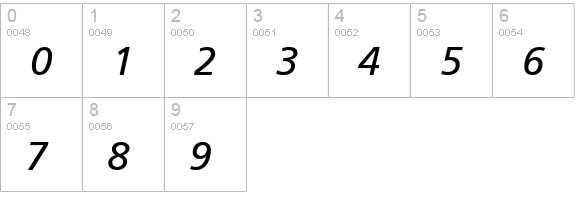
AG Foreigner Italic Medium Font Details
AG Foreigner Italic Medium is a balanced, medium-weight, italic variant in the AG typeface family \xE2\x80\x94 well suited to sub-headlines, navigation, and balanced editorial work.
AG Foreigner Italic Medium is a modern and stylish font that exudes sophistication and elegance. With its sleek lines and unique flair, this font is perfect for adding a touch of class to any design project. Whether you're creating a logo, signage, or print materials, AG Foreigner Italic Medium will make a bold statement. This versatile font is suitable for a wide range of applications and is sure to catch the eye of your audience. Its medium weight adds just the right amount of emphasis without being overpowering. The italic style gives it a dynamic and contemporary look that sets it apart from traditional fonts. Best of all, AG Foreigner Italic Medium is available for free download at FontsMarket.com. This means you can easily access this high-quality font and start using it in your projects right away. Don't miss out on the opportunity to enhance your designs with the sleek and stylish AG Foreigner Italic Medium font today!